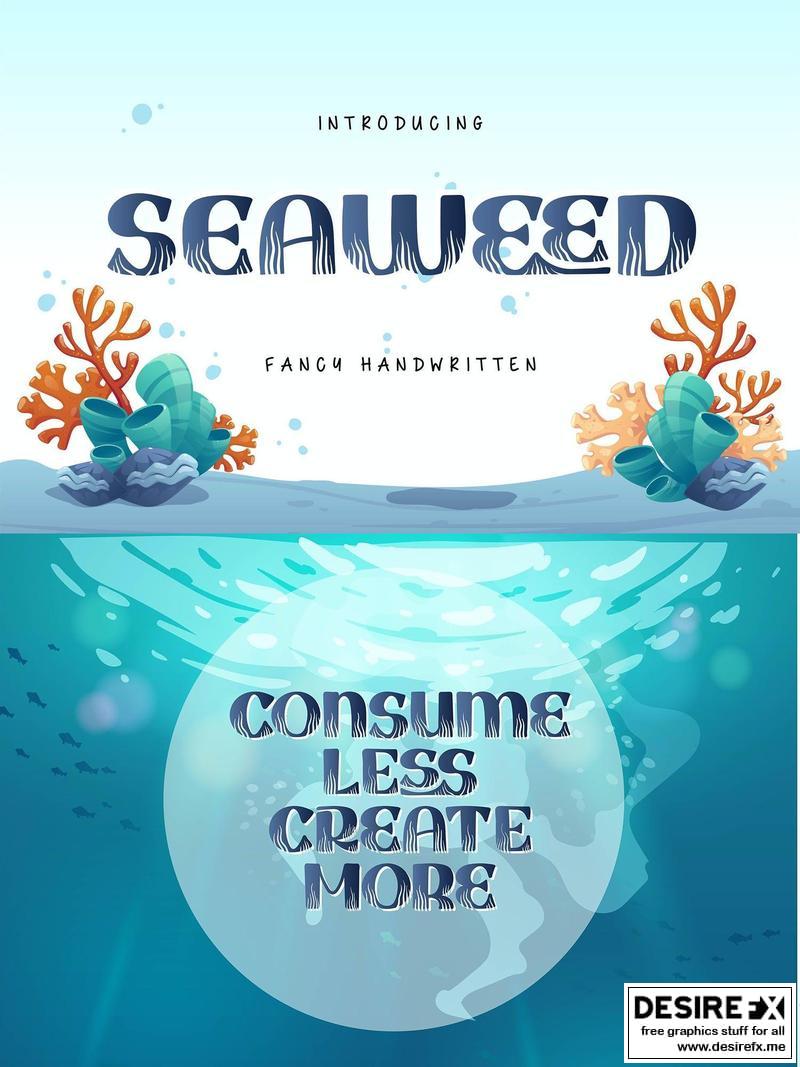
Seaweed | Fancy Handwritten Font YEBYLVE
Seaweed | Fancy Handwritten Font with a calligraphy style, So beautiful on invitation like greeting cards, branding materials, business cards, quotes, posters, and more!
• Tons of glyphs
• Alternates and Ligatures